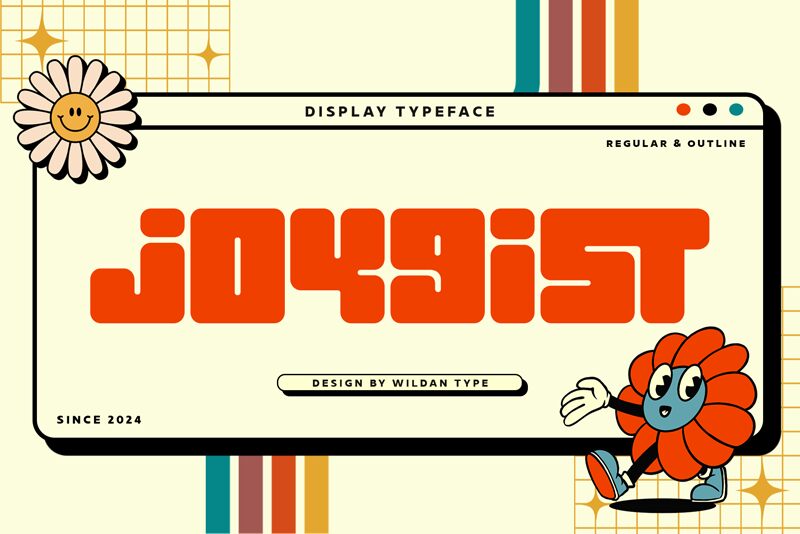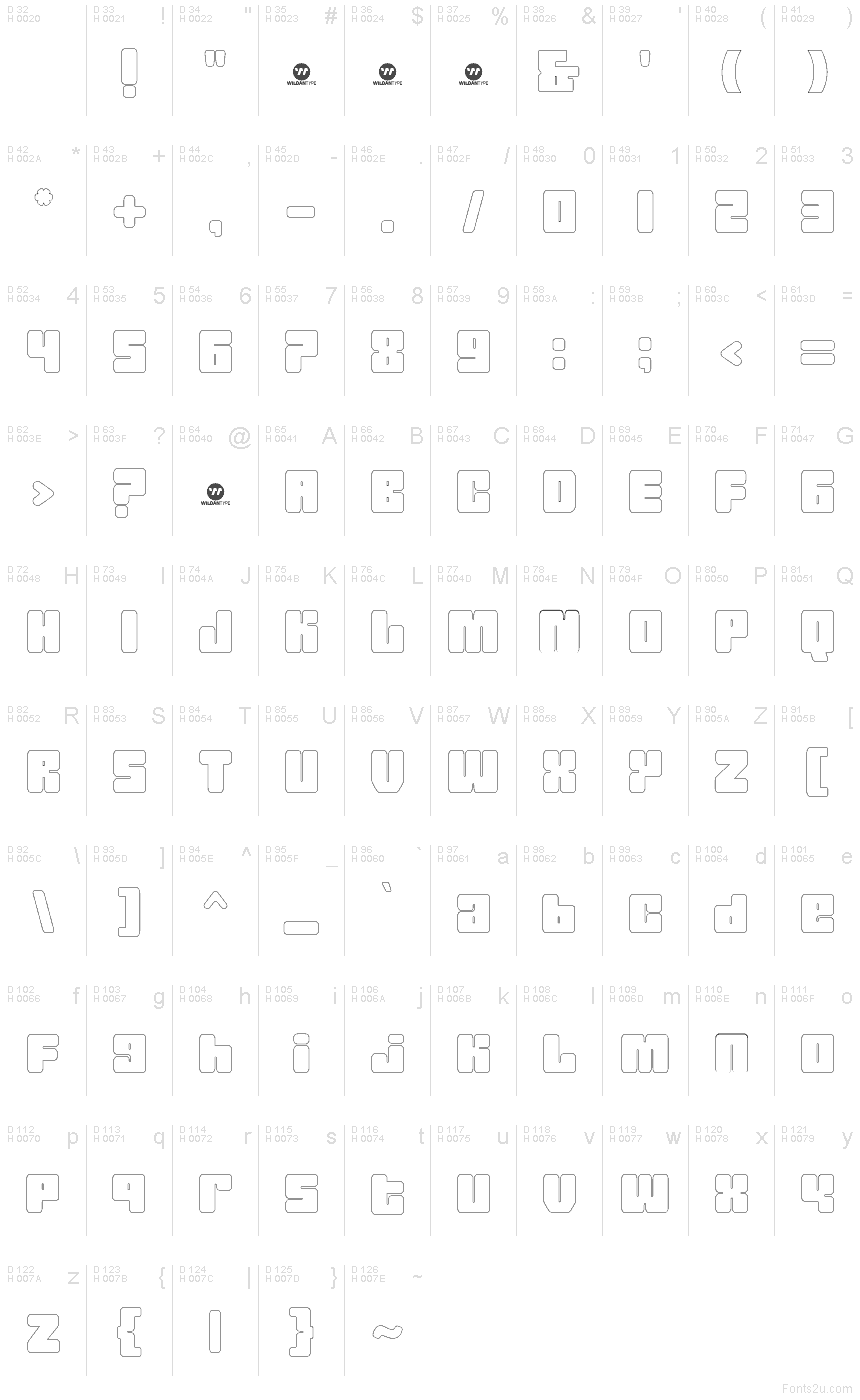
Joygist (Demo) Outline
Joygist Outline font by Wildan Type is a free groovy display typeface that turns every word into a soft, inflated shape outlined in clean, inky strokes. The rounded, pillow-like forms feel both retro and futuristic, like bubble letters refined with a precise vector pen. Tight spacing and consistent line weight make the Joygist family feel bold and lively without ever getting messy, so your letters read as one smooth, bouncy rhythm.
Using Joygist Outline, you can push playful, standout typography on posters, YouTube covers, party invitations, merch, packaging, and bold social graphics. This free font shines when set large, where its chunky silhouettes and hollow interiors create instant visual impact and room for color fills or textures behind the letters. Pair Joygist Outline with a simple geometric sans for body text, and let these groovy outlines take over your headlines.